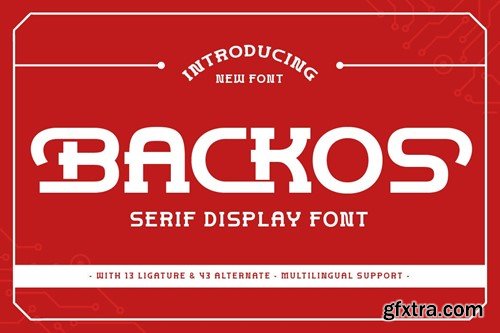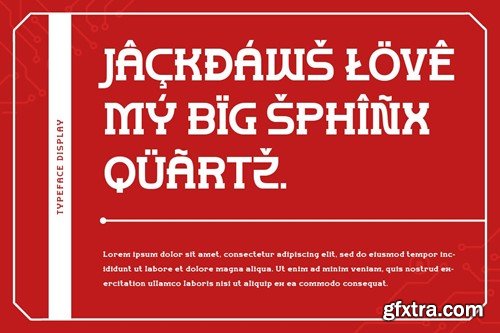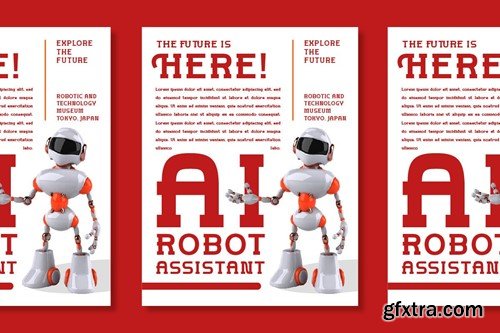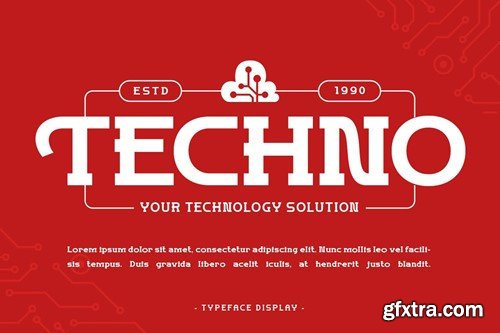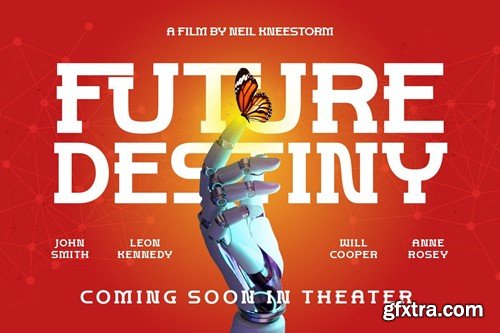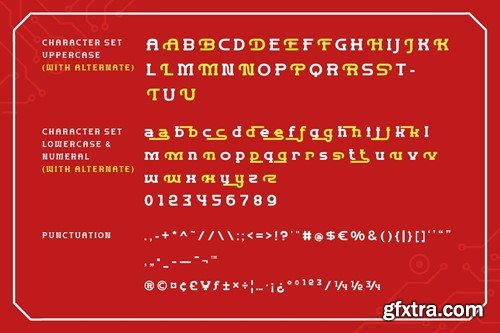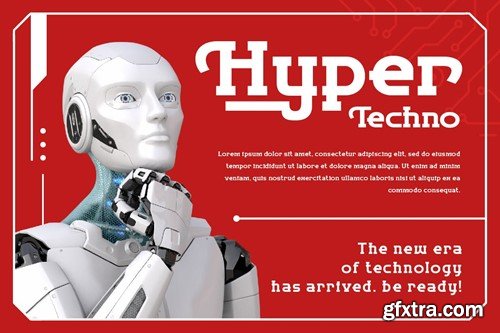
Backos - 等线字体 567CF8D
Backos is a serif display font that is the epitome of classic design. It combines the timeless elegance of serif fonts with a modern twist, making it a versatile choice for a wide range of designs. Whether you’re creating a corporate report that needs to convey reliability and professionalism, or crafting a personal invitation that needs a touch of elegance, Backos is the perfect choice. It’s more than just a font, it’s a design statement. What’s Included: